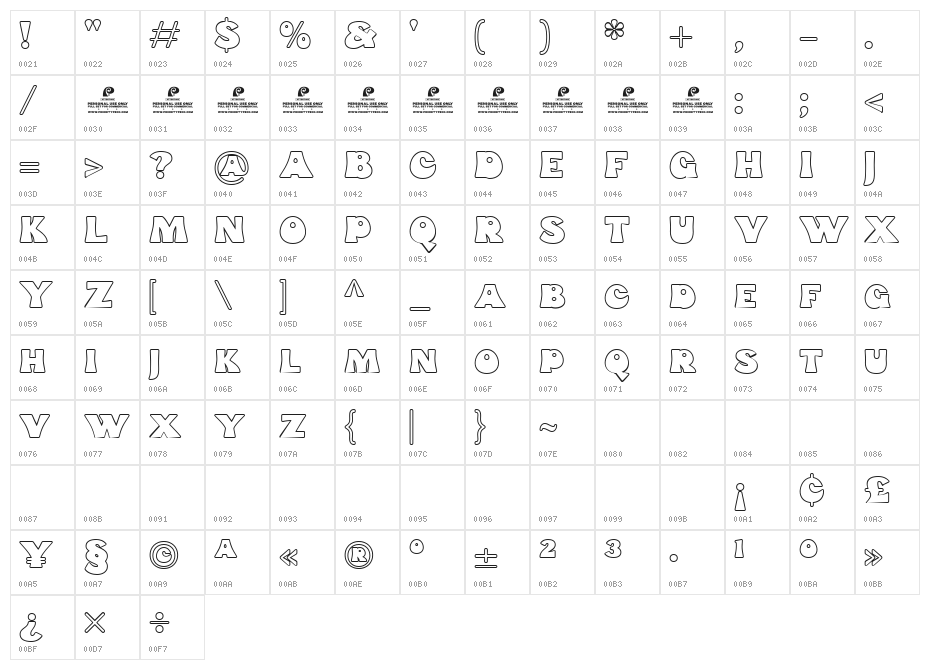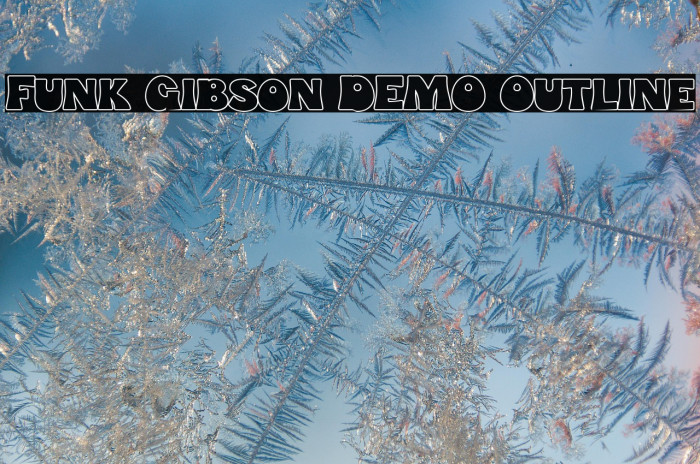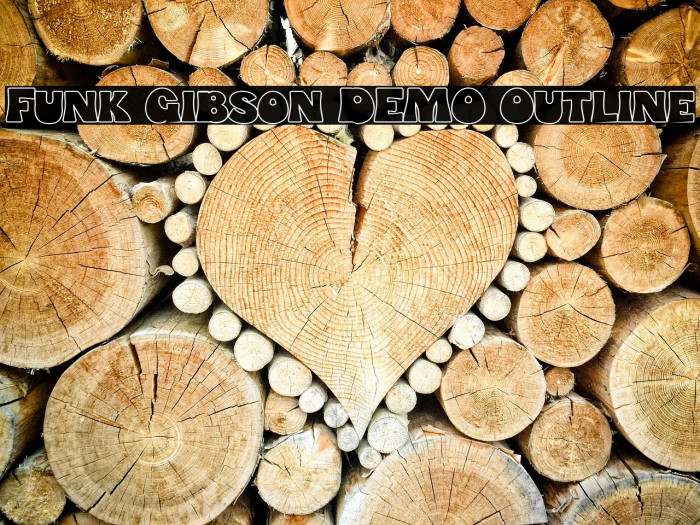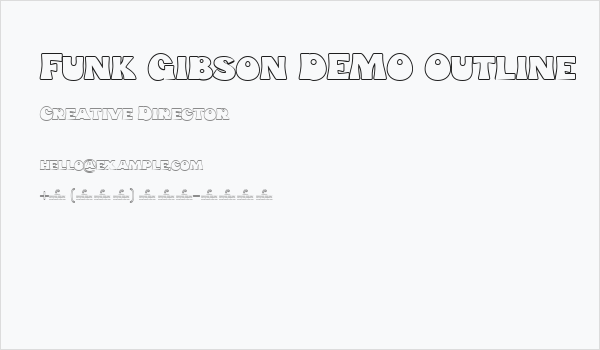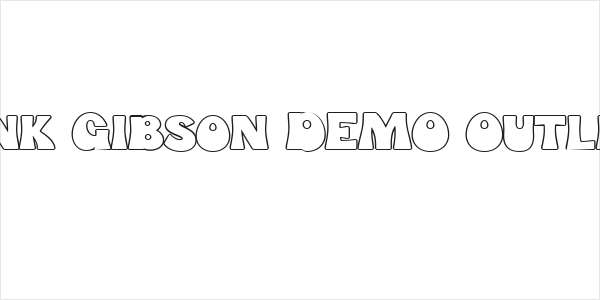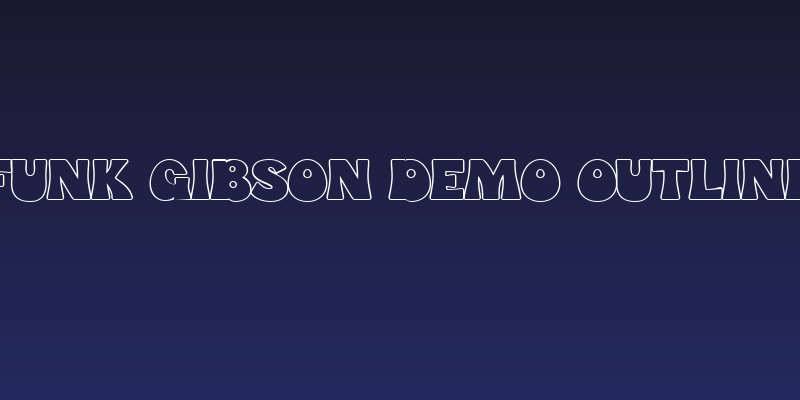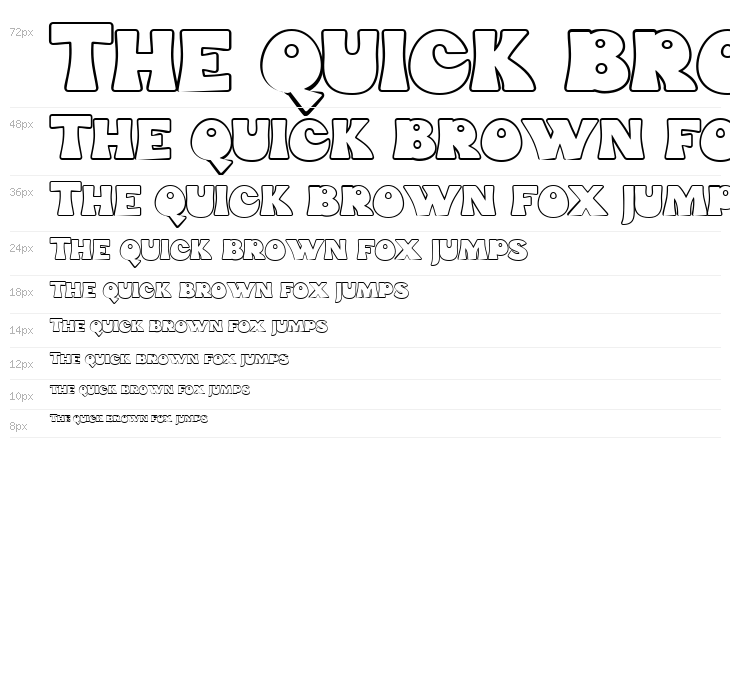
Funk Gibson DEMO Outline Font
Funk Gibson DEMO Outline Description
This font features bold, playful outlines with a distinct, cartoonish flair. The characters are designed with a thick, uniform stroke that gives them a strong presence. The uppercase letters have a slightly exaggerated, whimsical style, while the lowercase letters maintain a consistent, rounded appearance. The numbers and special characters follow the same playful theme, making them ideal for eye-catching designs. The overall look is fun and engaging, suitable for creative projects that require a lively and dynamic typeface.
| Overall Style | Playful, Cartoonish |
| Proposed Projects | Ideal for children's books, comic strips, playful branding, and party invitations. |